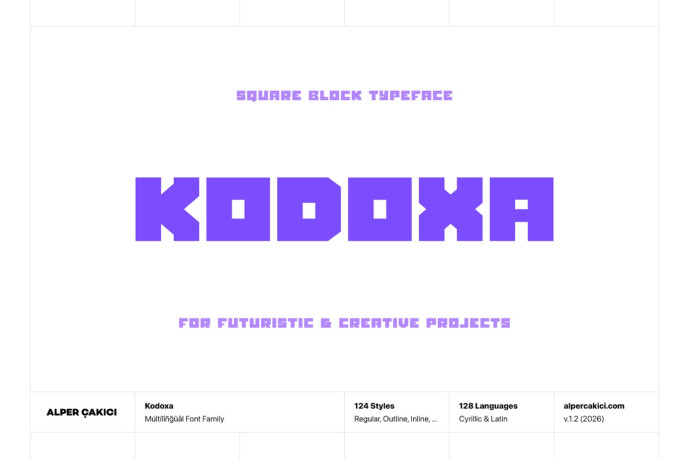
Kodoxa – Heavy Font family
Kodoxa is a bold, blocky display typeface built with a strong square structure and heavy visual impact. Designed for maximum presence, it combines geometric rigidity with expressive texture variations, making it highly versatile across both modern and distressed design styles.
Kodoxa stands out with an exceptional family of 124 styles. From clean and solid cuts like Regular and Rounded to highly textured variations such as Brush, Chalk, Grainy, Gritty, Rusty, and Sketchy, it offers a wide spectrum of moods—from polished and modern to raw and handcrafted. Additional stylistic sets like Circular and Rounded expand its usability, softening the rigid structure while maintaining its bold identity.
Each style is carefully crafted to retain consistency while offering unique visual character. Outline, Inline, Shadow, and Rimmed variants provide layered design possibilities, allowing designers to build striking compositions with depth and contrast.